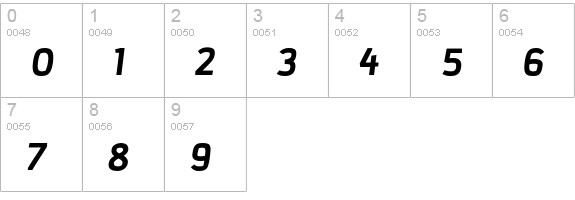
Korpo Sans Bold Italic Font Details
Korpo Sans Bold Italic is a strong, high-contrast, italic variant in the Korpo typeface family \xE2\x80\x94 well suited to headlines, attention-grabbing titles, and strong calls-to-action.
Korpo Sans Bold Italic is a modern and stylish typeface that exudes confidence and sophistication. Its bold and italic design adds a touch of flair to any project, making it perfect for headlines, titles, and emphasis. The sleek lines and elegant curves of Korpo Sans Bold Italic create a visually striking appearance that commands attention. This versatile font is free to download at FontsMarket.com, making it accessible to designers, artists, and creatives looking to elevate their work with a touch of sophistication. Whether you're designing a website, creating a poster, or crafting a logo, Korpo Sans Bold Italic is a versatile choice that will help you make a bold statement. Download this font today and add a touch of modern elegance to your next project.